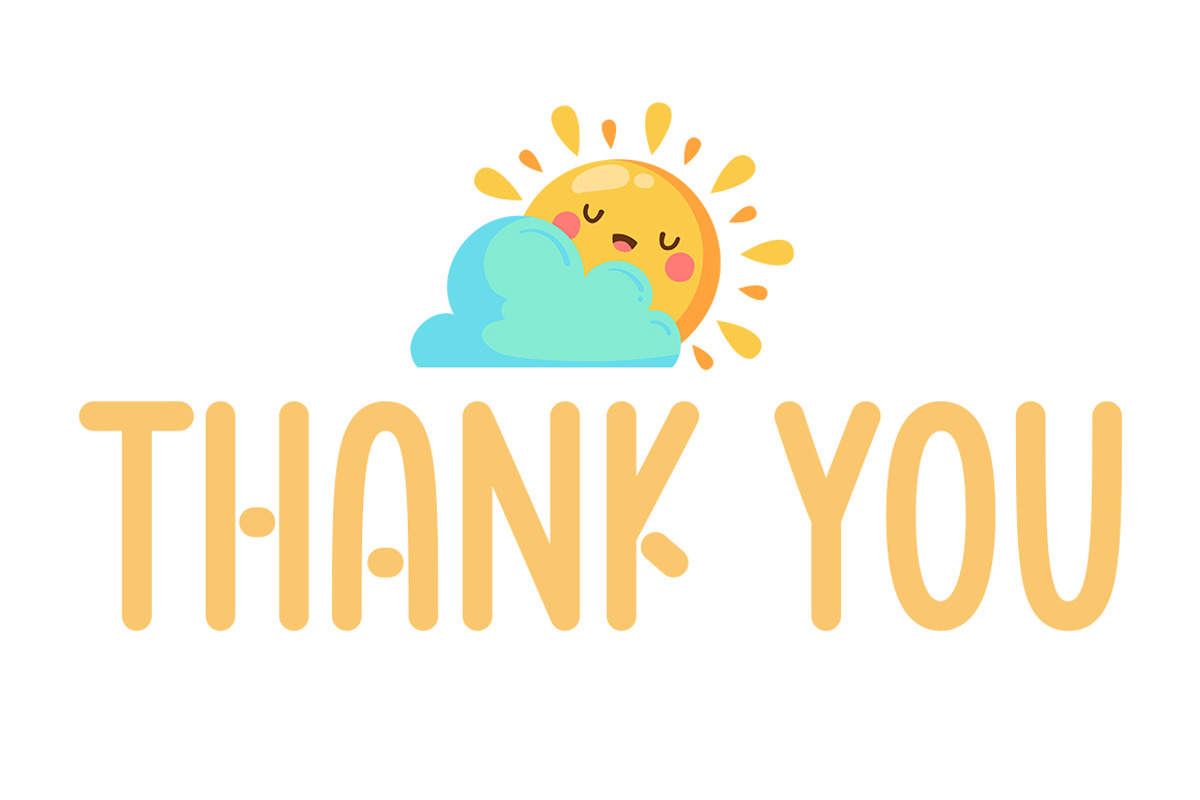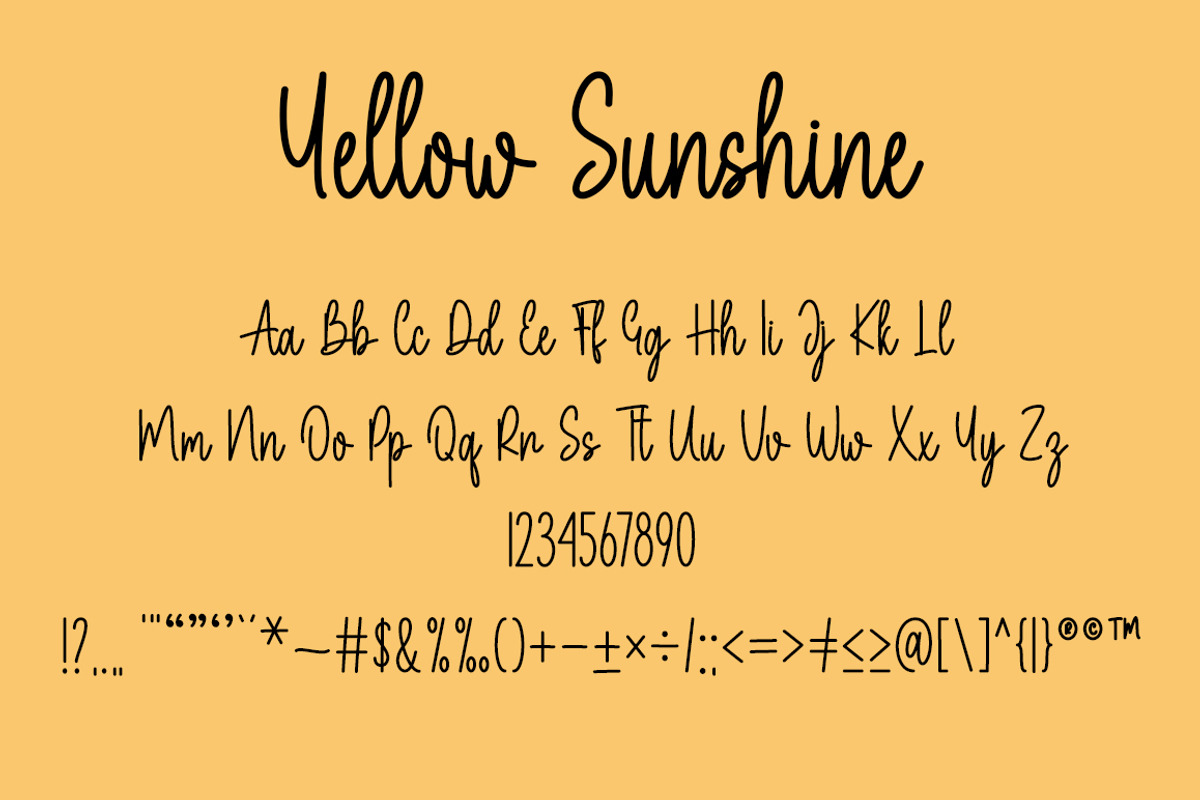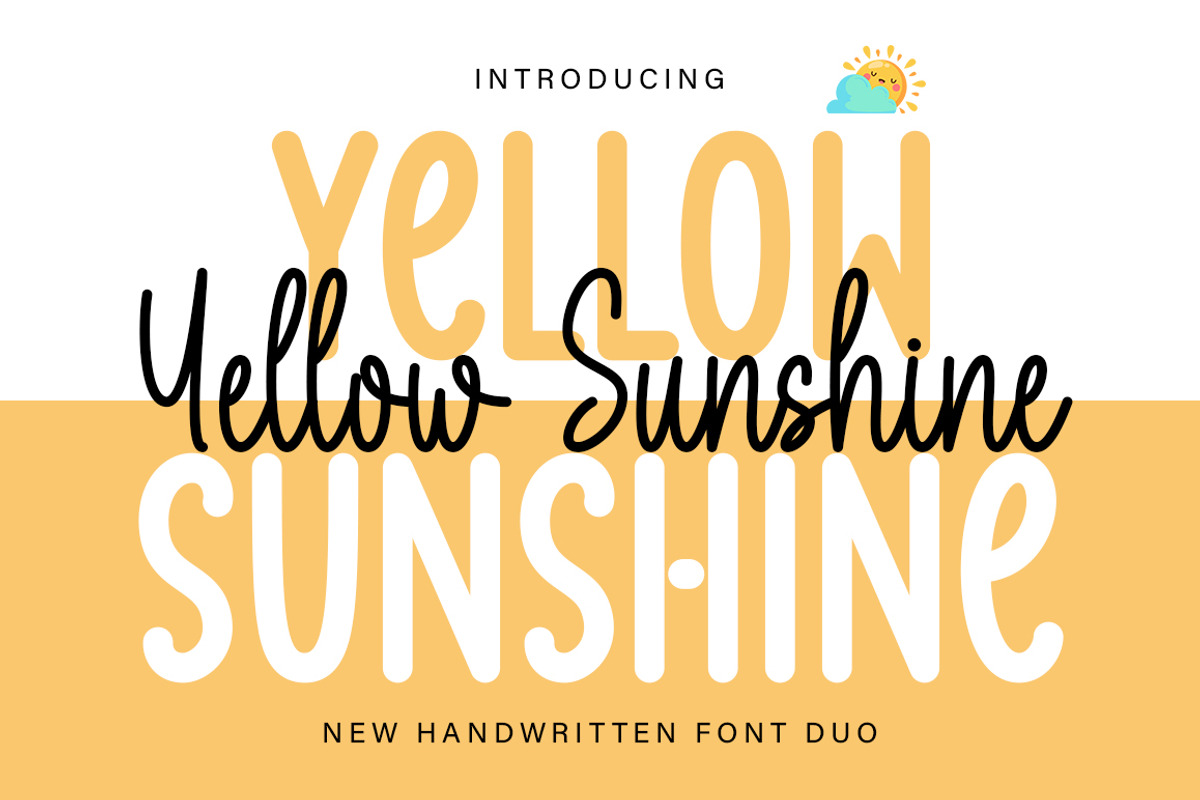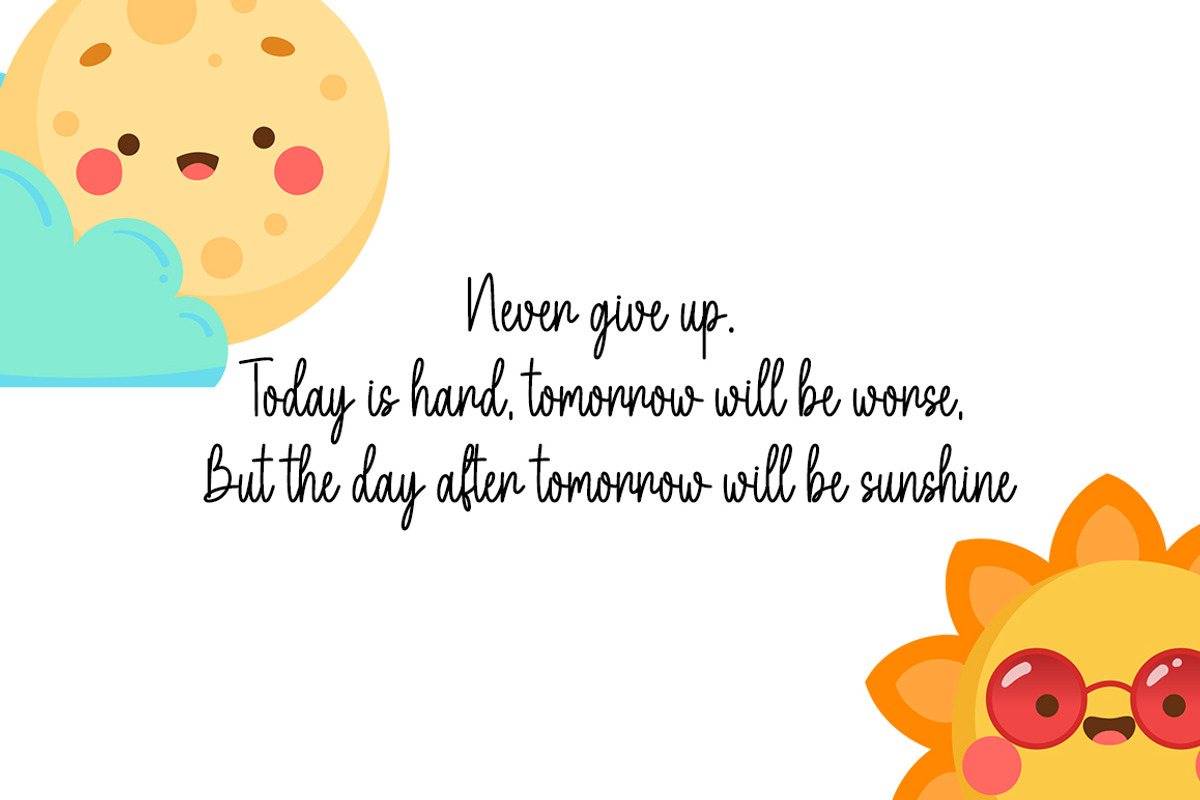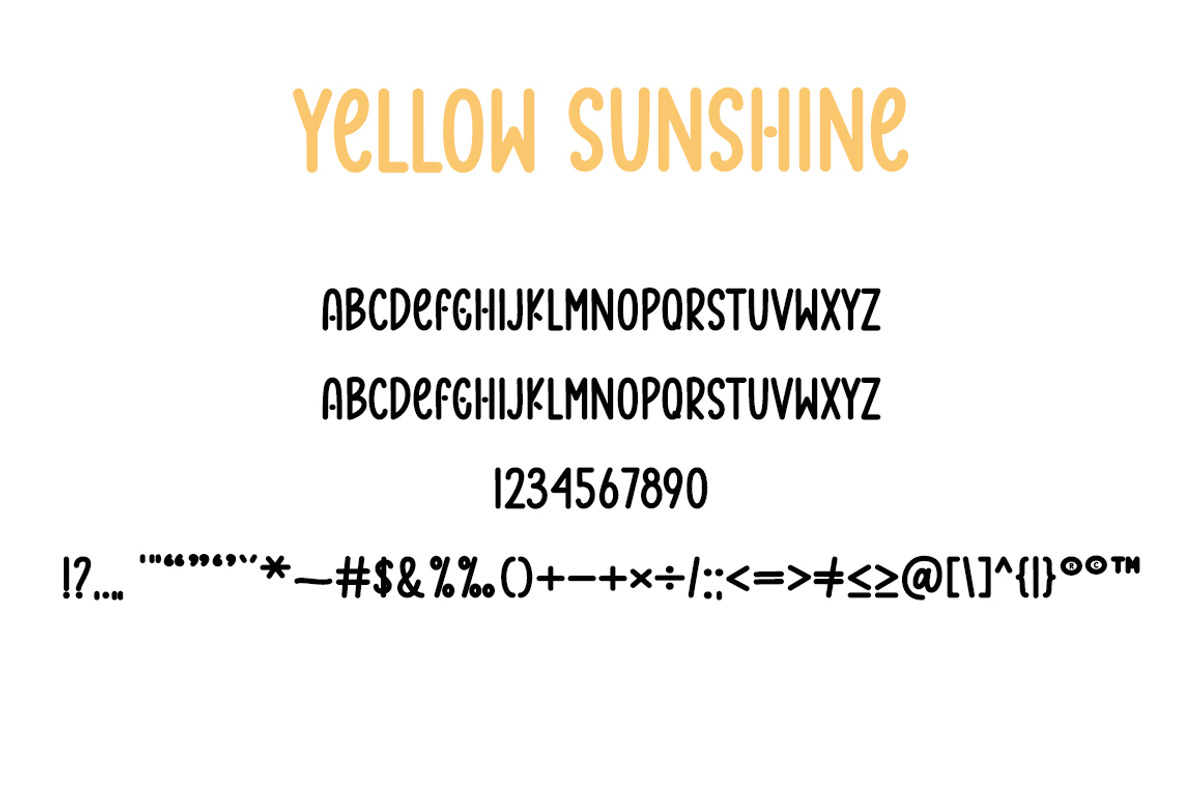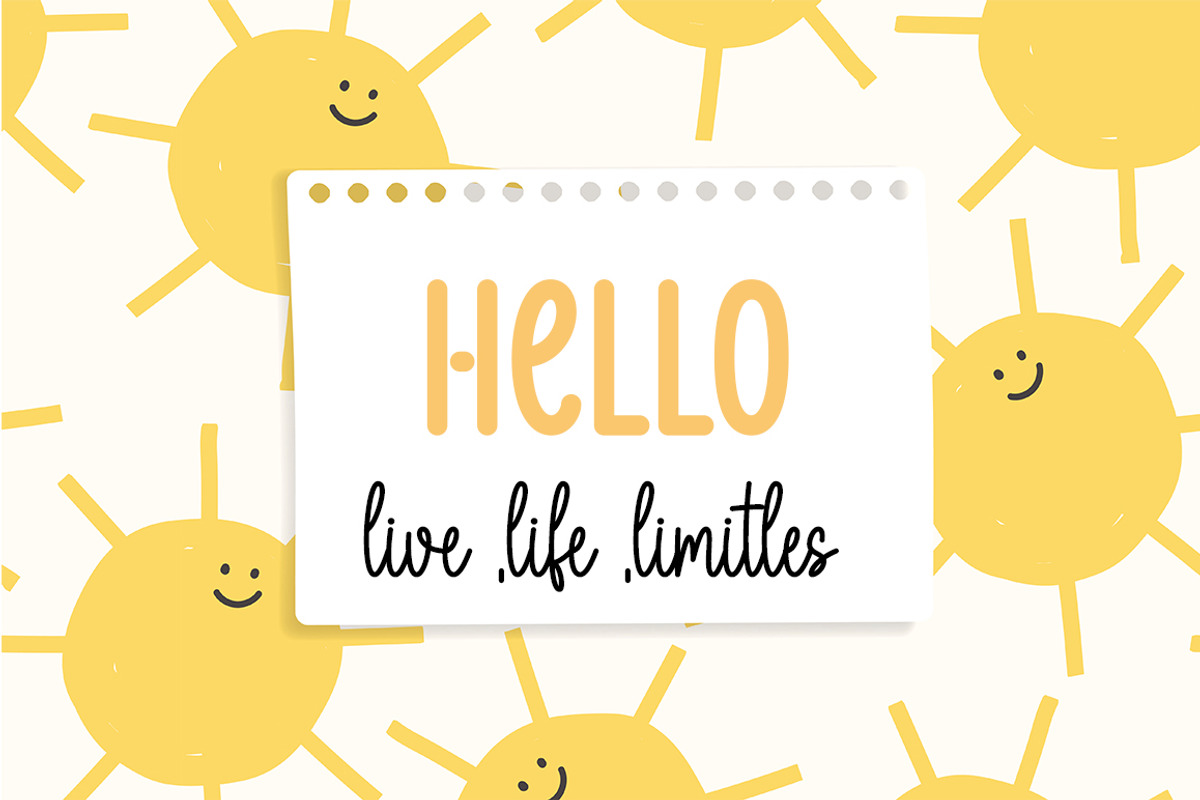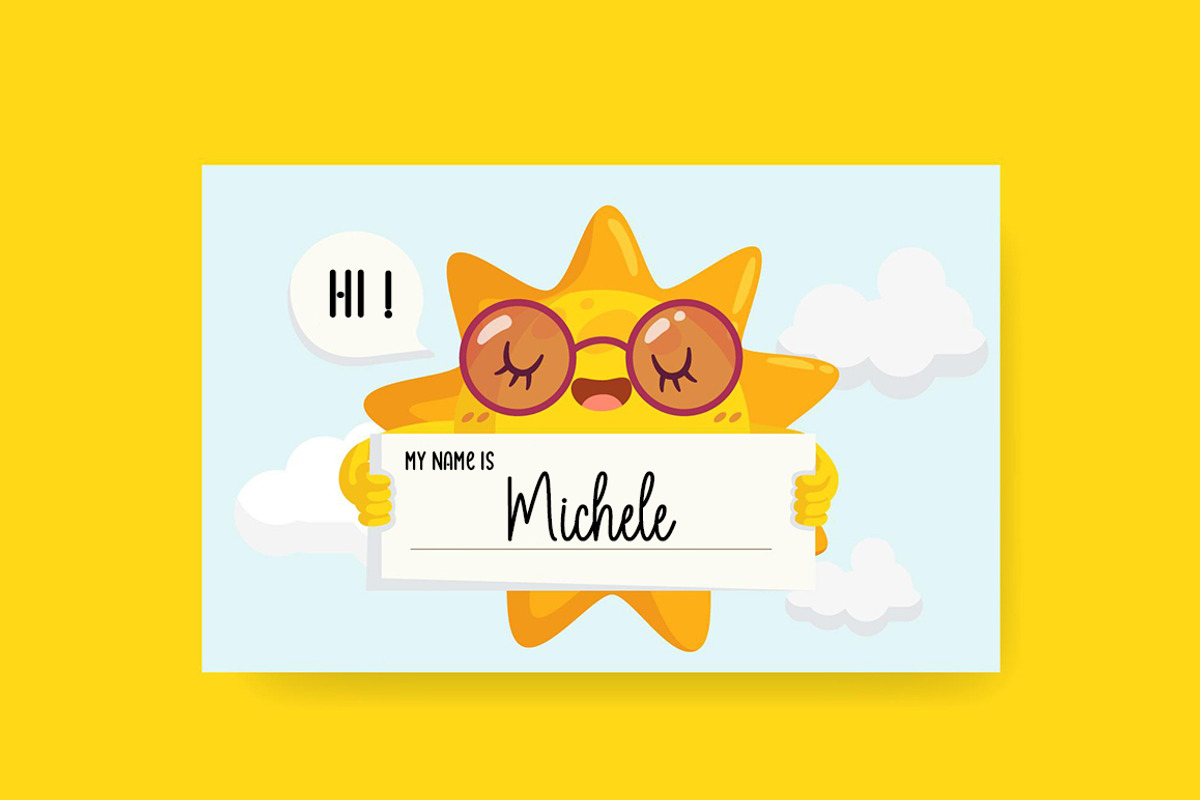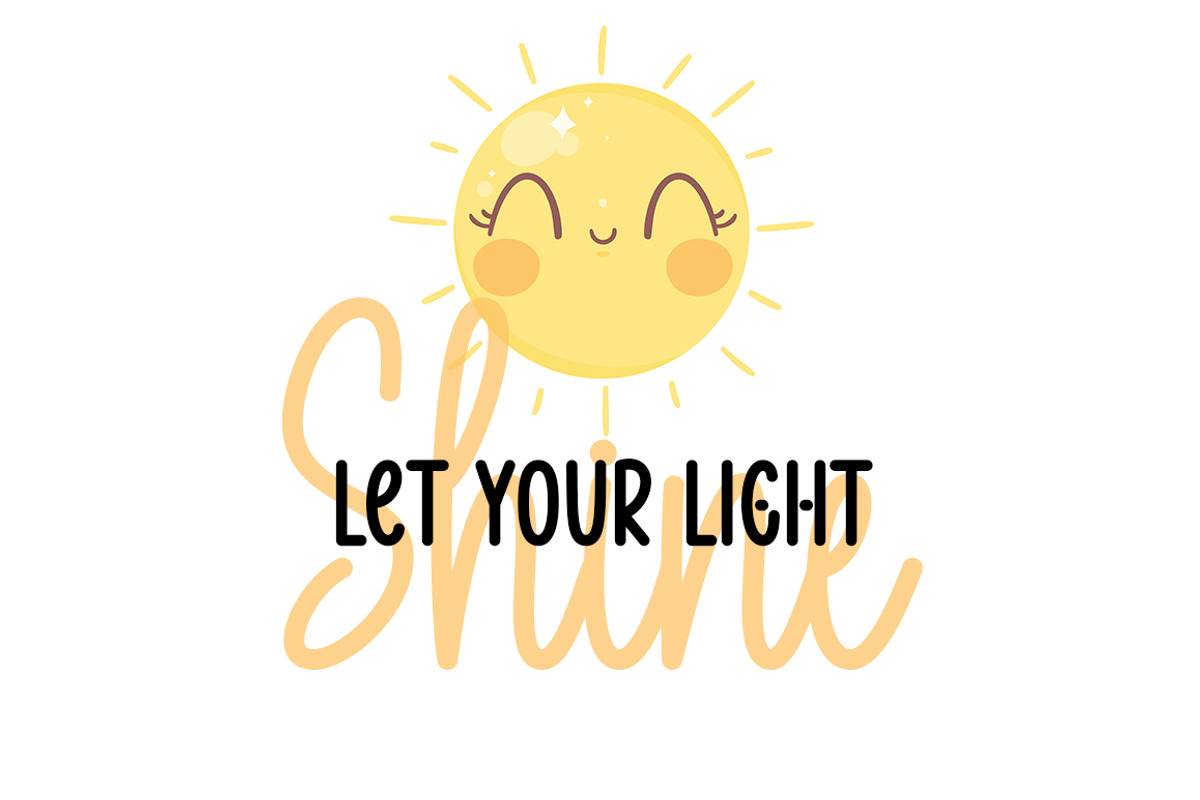
Yellow Sunshine Duo
Yellow Sunshine Duo is a stylish and delicate duo font (sans serif and script) suitable for a wide spectrum of applications. From greeting cards to headlines, this font will guarantee a romantic touch to each of your creations! This font is PUA encoded which means you can access all of the amazing glyphs and ligatures with ease!